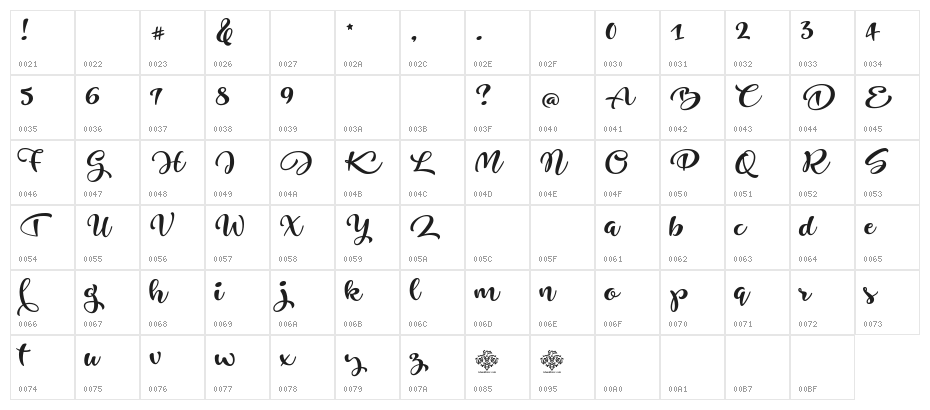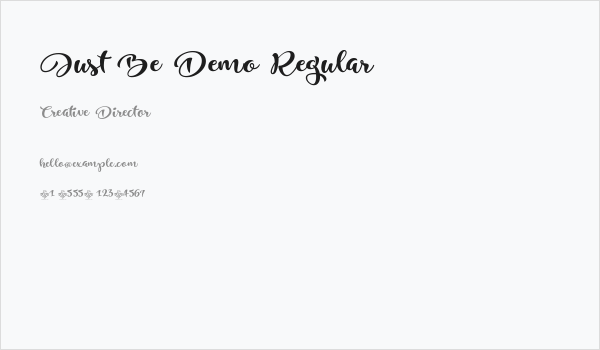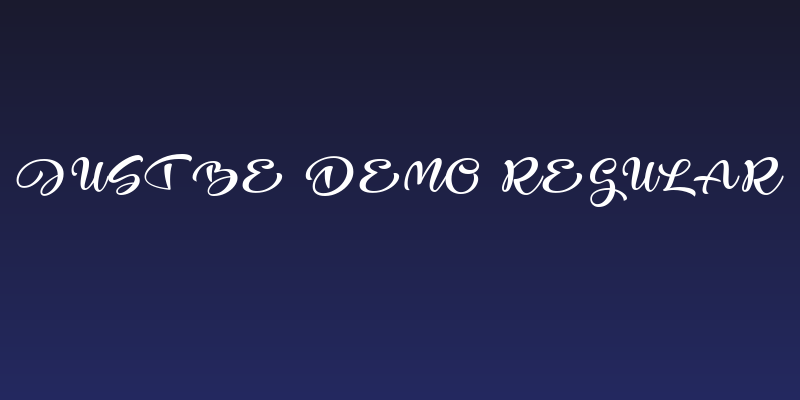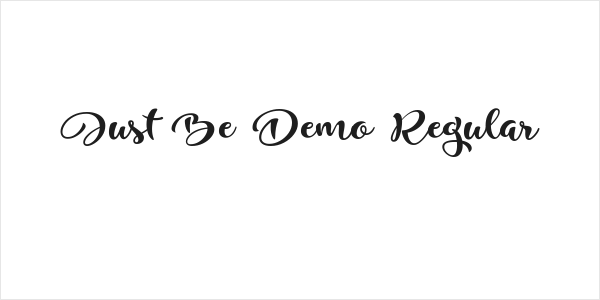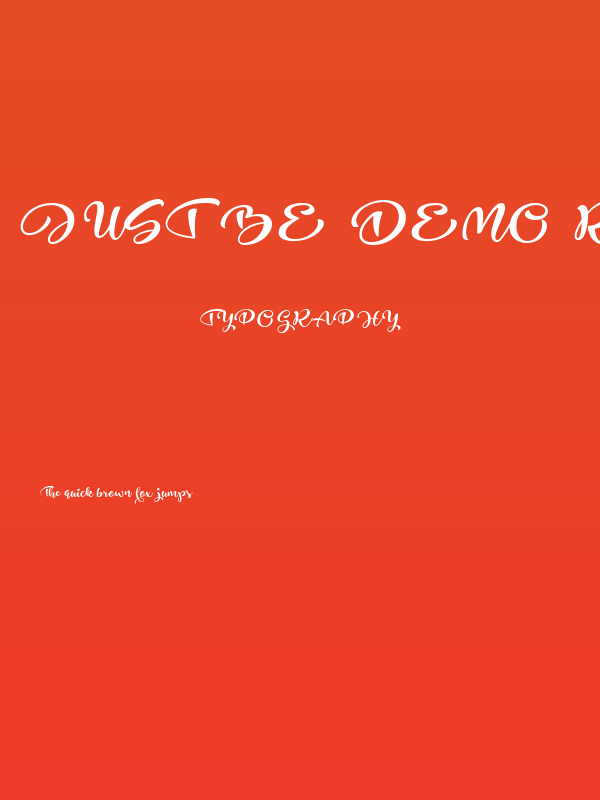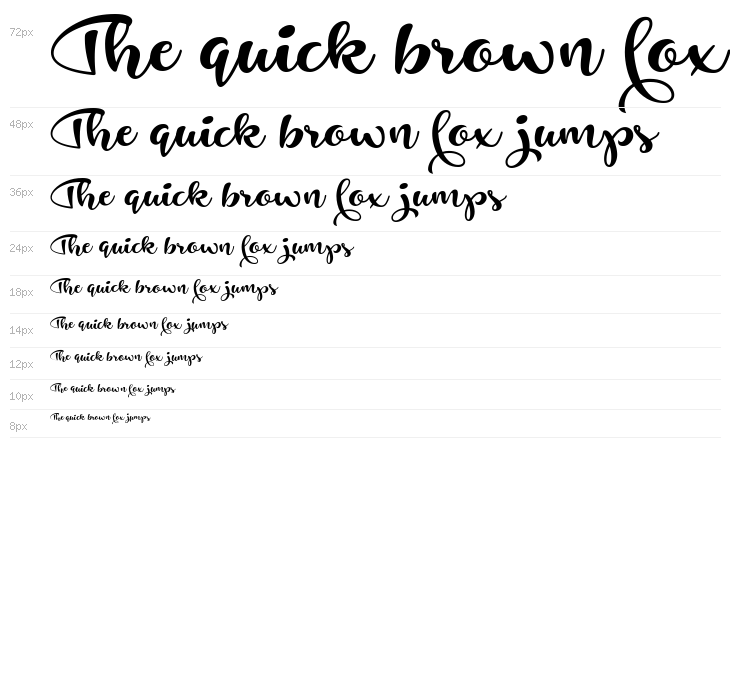
Just Be Demo Regular Font
Just Be Demo Regular Description
This font features a flowing, cursive style that exudes elegance and sophistication. The characters are interconnected with smooth, sweeping curves, giving it a handwritten appearance. The uppercase letters are slightly more ornate, with decorative flourishes that add a touch of flair. The lowercase letters maintain a consistent rhythm, enhancing readability while preserving the artistic quality. Numbers and special characters are designed to match the overall aesthetic, ensuring a cohesive look across all text. This font is ideal for projects that require a personal, yet polished touch.
| Proposed Projects | Ideal for wedding invitations, greeting cards, branding, and elegant logo designs. |